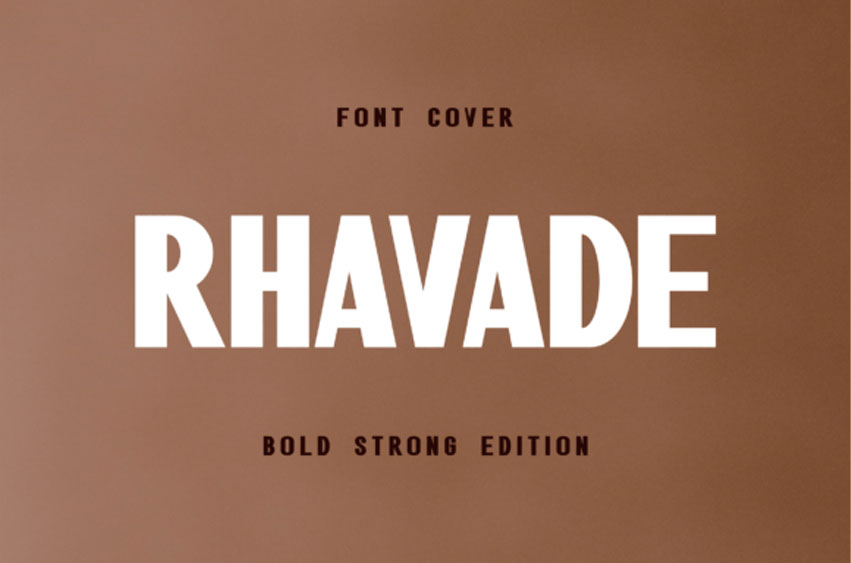
Rhavade Font
Rhavade Font is a bold, all caps display font featuring the perfect amount of trendiness.
Whether you’re using it for crafting, digital designing, presentations or greeting cards making, it’s perfect!